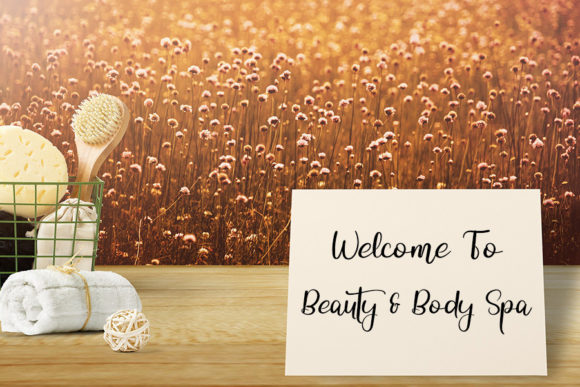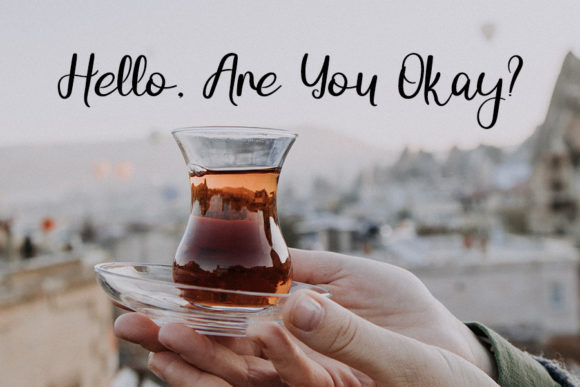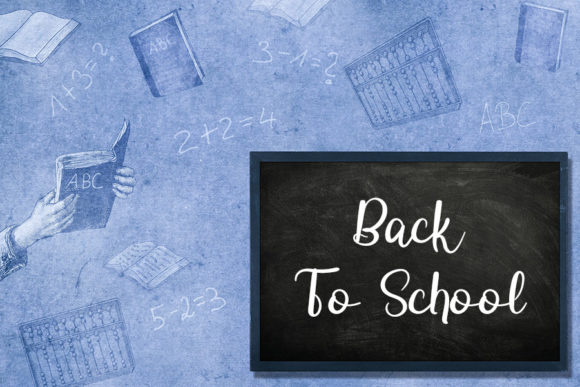
Introduction to History Matter Font
History Matter is a stylish handwritten font with a contemporary atmosphere and impeccable form, inspired by timeless classic calligraphy.
Not too thin and not too thick, balanced and varied, this font was designed to enhance the beauty of your projects Fall in love with it and bring your designs to the highest level.
Key Features of History Matter Font